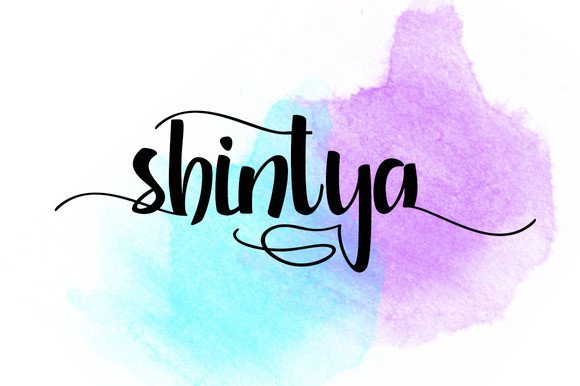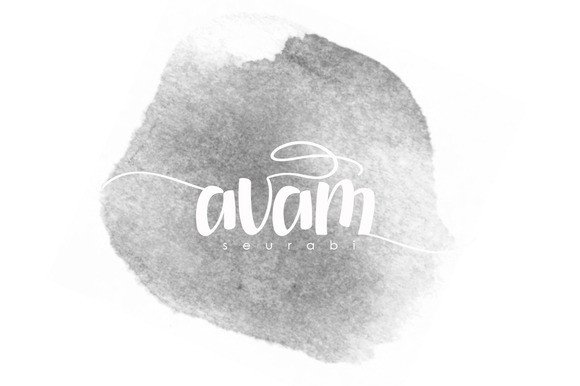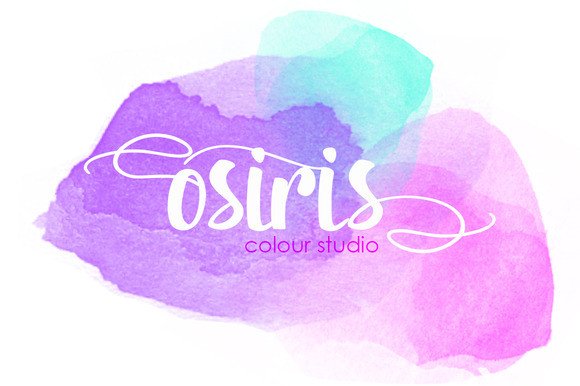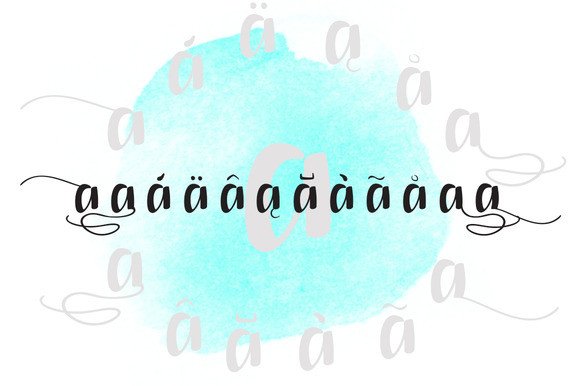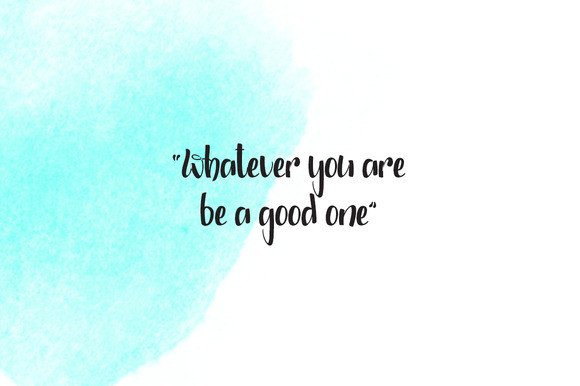
Shintya Font
About Shintya Font
Shintya is a beautiful script font based in calligraphy style. This modern font style is a great option for invitationals and romantic collateral material.